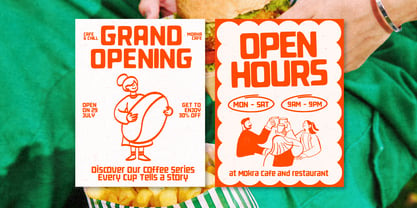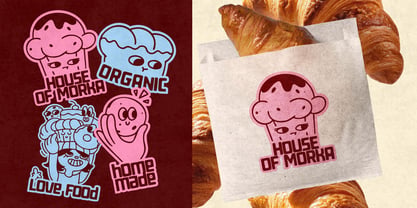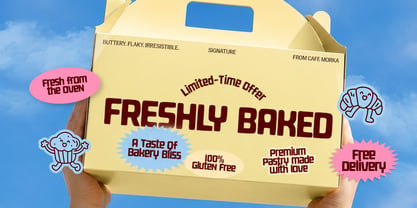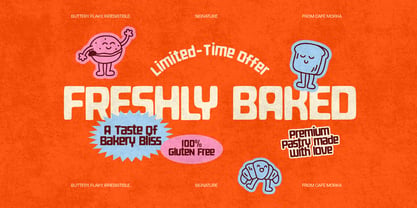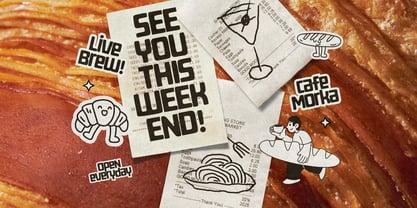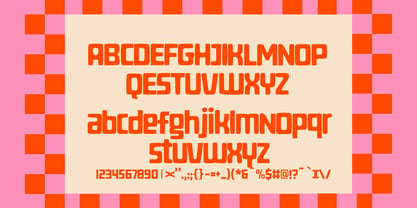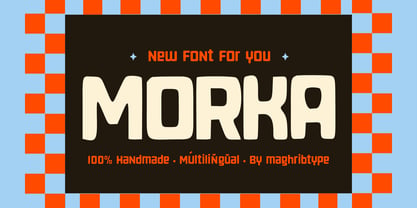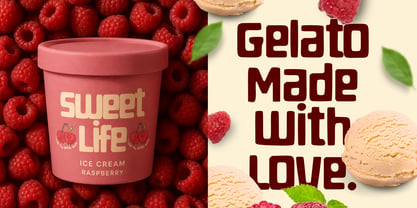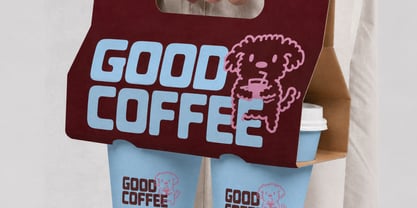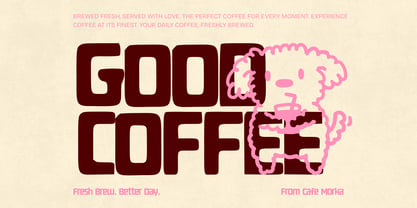
Morka
Morka is a bold and playful sans serif font designed to bring personality, warmth, and character to your typography. With its chunky proportions, rounded corners, soft curves, and handmade feel, Morka creates a friendly visual presence while maintaining strong readability.
Its distinctive letterforms make Morka especially suitable for branding, logos, packaging, posters, social media, headlines, editorial layouts, café and food branding, merchandise, and creative advertising.
Morka works beautifully when you need typography that feels bold but friendly, expressive but clean, and playful without losing its visual impact.
From café signs and food packaging to lifestyle brands and creative campaigns, Morka is made to stand out.